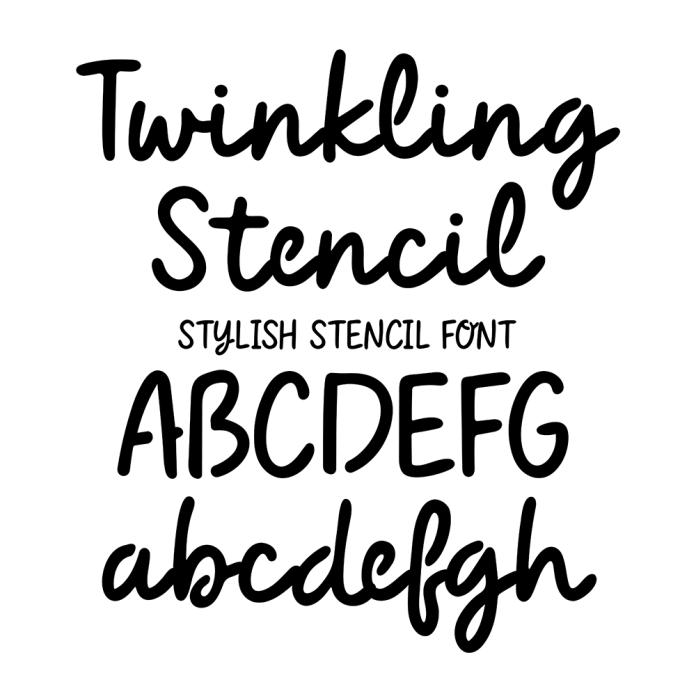
Twinkling Stencil Script Cursive Handwriting Font is a elegant and sophisticated brush script font perfect for wedding invitations and engagement announcements. Its unique stencil design adds a modern twist to traditional cursive fonts, making it stand out. The flowing and graceful strokes give a romantic and whimsical feel to any text. Ideal for adding a touch of charm and elegance to any design project.